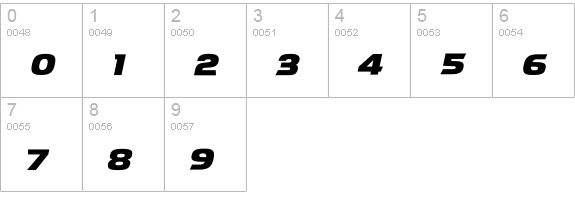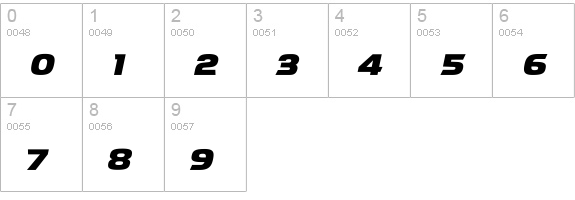
Ritafurey-BoldItalic is a striking and elegant font that exudes sophistication and modernity. Its bold and italic design adds a touch of flair and personality to any project. With its clean lines and unique style, Ritafurey-BoldItalic is perfect for creating eye-catching headlines, branding materials, and social media graphics. What sets Ritafurey-BoldItalic apart is that it is available for free download at FontsMarket.com. This means that you can easily access this high-quality font without any cost, making it a valuable addition to your font collection. Whether you are a designer, content creator, or just someone looking to enhance their visual projects, Ritafurey-BoldItalic is a versatile and stylish choice that is sure to impress. Elevate your designs with Ritafurey-BoldItalic and make a bold statement today!